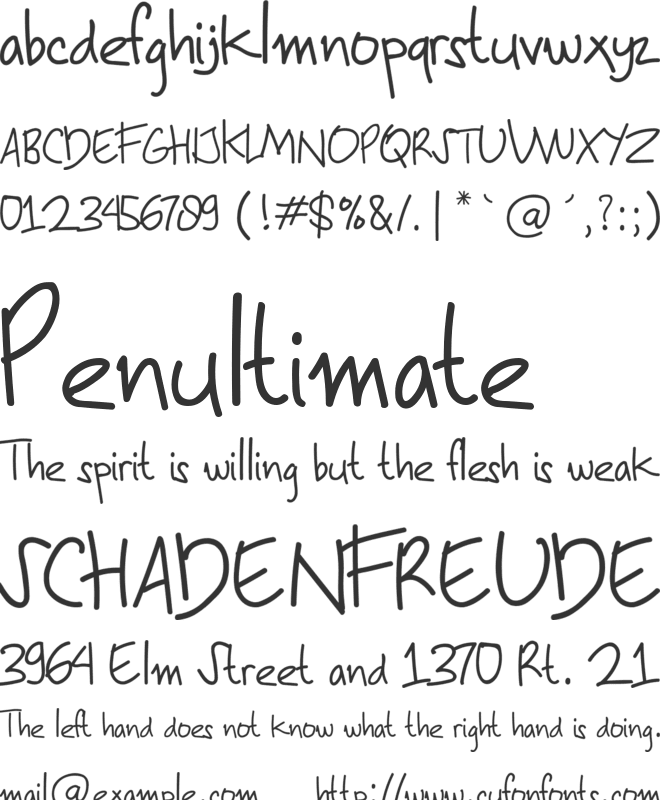
Andila Font
Introducing Andila Handwriting Font
Andila Handwriting this font perfect for branding, invitation, stationery, wedding designs, social media posts, product packaging, product designs, label, special events or anything.
Andila font preview